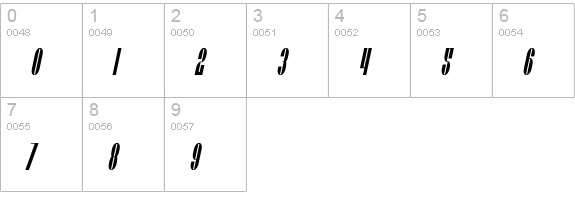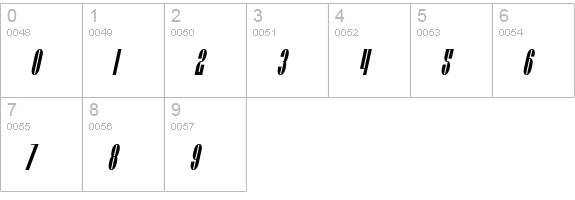
SF Baroquesque Oblique Font Details
SF Baroquesque Oblique is a distinctive, italic variant in the SF typeface family \xE2\x80\x94 well suited to design and typography projects.
SF Baroquesque Oblique is a captivating and intricate font that effortlessly blends the elegance of Baroque art with a modern twist. This font is sure to captivate your audience with its unique and mesmerizing design. The striking details and delicate curves of SF Baroquesque Oblique add a touch of sophistication and grandeur to any project. Each letter is meticulously crafted, evoking a sense of opulence and refinement that is reminiscent of the Baroque period. What sets SF Baroquesque Oblique apart is its versatility. Whether you are designing a wedding invitation, a logo, or a book cover, this font will elevate your design to new heights. Its oblique style adds a dynamic and dynamic touch to any project, making it a perfect choice for those looking to create a bold statement. And the best part? SF Baroquesque Oblique is completely free to download at FontsMarket.com. We believe that great design should be accessible to everyone, and that's why we are offering this stunning font at no cost. So go ahead, unleash your creativity and download SF Baroquesque Oblique today to add a touch of elegance and sophistication to your designs.